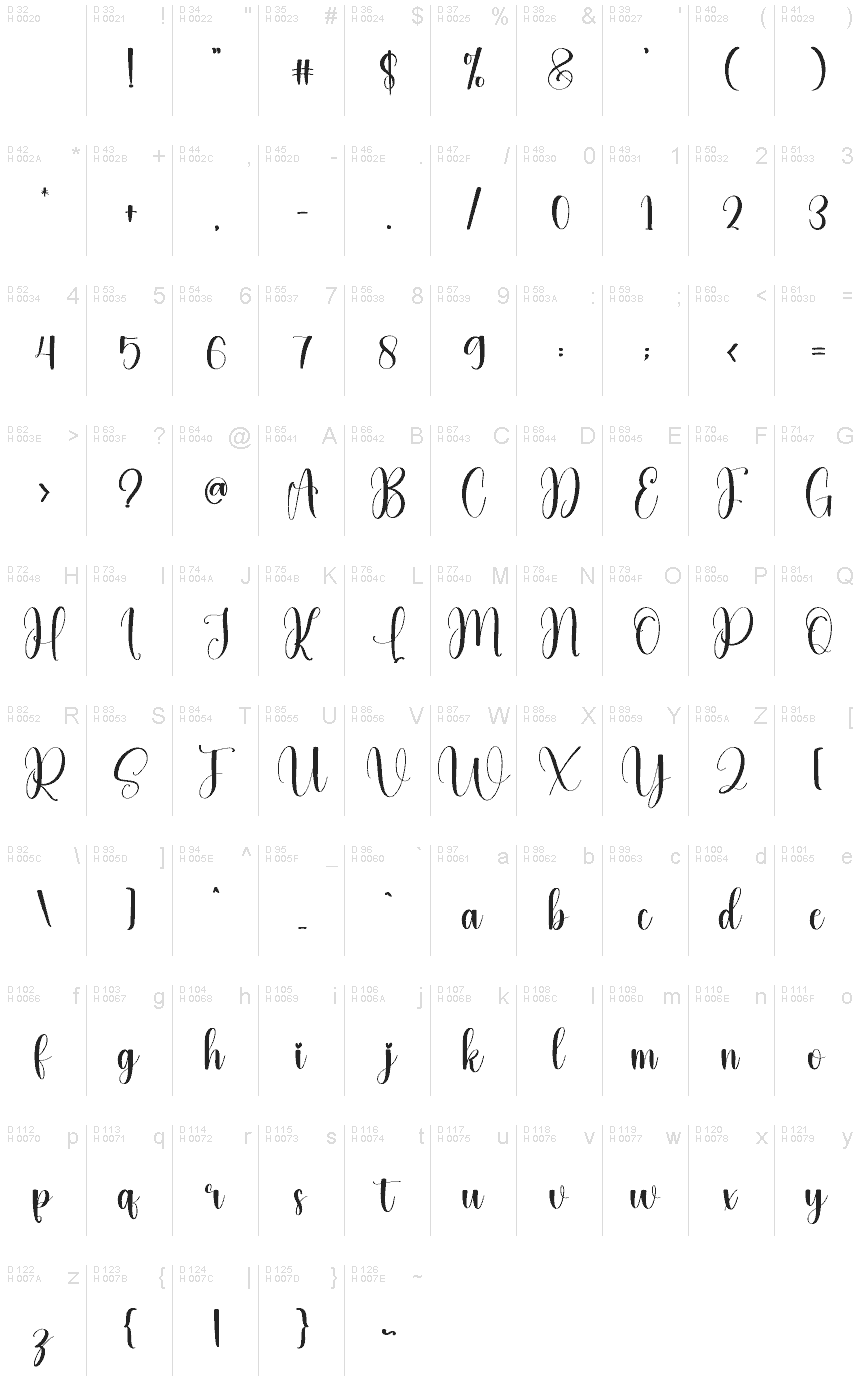
Value
Value font by FreshtypeINK is a flowing free calligraphy font that embodies casual elegance with its signature style. Expressive in each swirl, the typeface offers a modern appeal to digital audiences. It holds movement that enhances its dynamic nature, building a valued presence for any project.
Value font is excellent for cards (greeting cards, gift cards), branding and packaging designs, price tags, signatures such as presented on social media platforms or posters/advertisements, and websites.